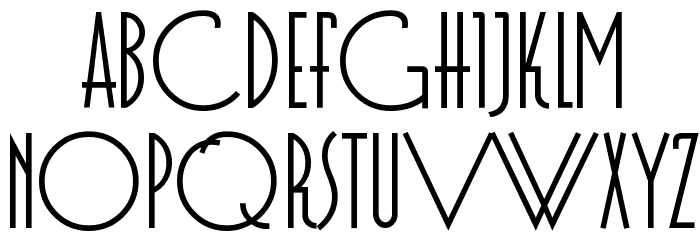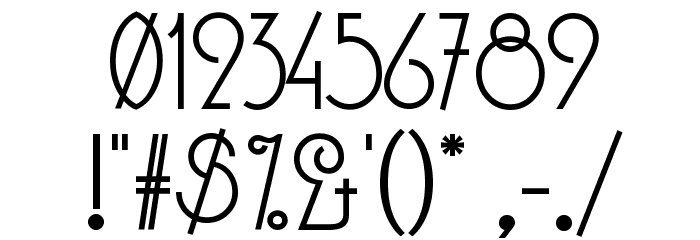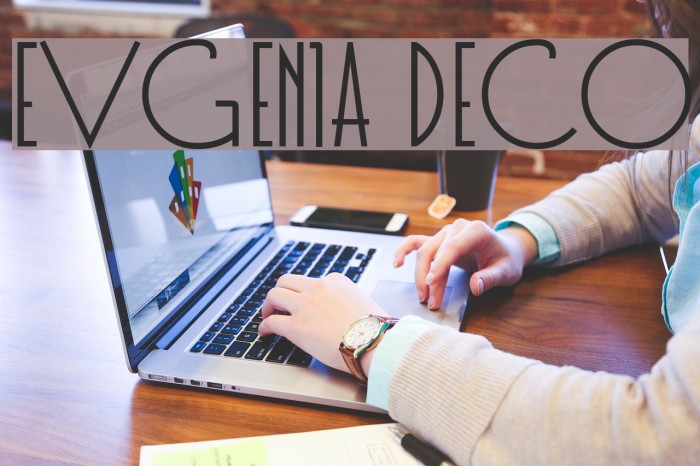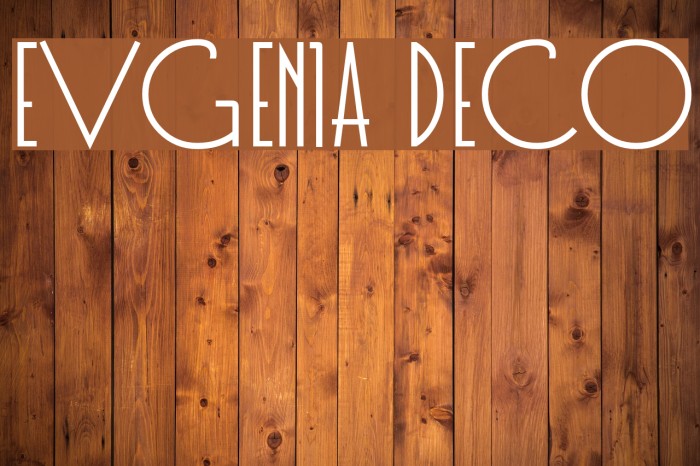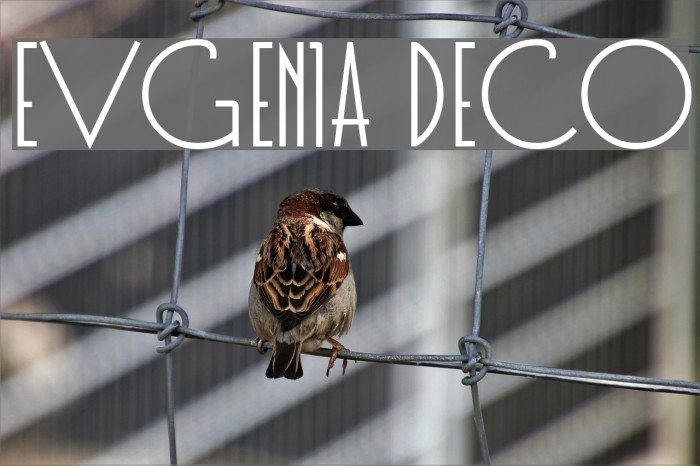
Evgenia Deco Font
This font features a distinct Art Deco style, characterized by its geometric shapes and elegant lines. The uppercase letters are tall and narrow, with sharp angles and a sense of symmetry that reflects the architectural influences of the 1920s and 1930s. The lowercase letters maintain a similar aesthetic, offering a cohesive look across different text cases. Numbers and special characters are designed with the same attention to detail, providing a consistent and stylish appearance. The overall design is both decorative and functional, making it suitable for a variety of creative applications.
A geometric Art Deco font with elegant lines and symmetry.
- Font: Evgenia Deco
- Proposed Projects: Ideal for vintage-themed posters, luxury branding, wedding invitations, and editorial design.
- Overall Style: Vintage